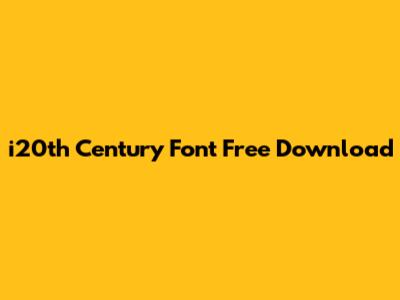
Download I20th Century Font: Free Options & Alternatives
Finding the perfect font can be a game-changer for any design project. If you're on the hunt for an i20th century font free download, you've come to the right place. In this article, we'll explore what makes this font style unique, where you can find it, and some awesome alternatives if you're coming up short. Let's dive in!
What is the i20th Century Font?
The i20th century font isn't a single, specific font, but rather a style that evokes the design aesthetics of the 20th century. This era saw a massive shift in typography, influenced by movements like Bauhaus, Art Deco, and the rise of modernism. Fonts from this period often feature clean lines, geometric shapes, and a sense of functional elegance. Think about the fonts you might see on vintage posters, old advertisements, or classic book covers – those are the kinds of vibes we're talking about.
The key characteristics of i20th century fonts include:
- Geometric Shapes: Many fonts from this era rely on basic geometric forms like circles, squares, and triangles.
- Clean Lines: Simplicity and clarity were highly valued, leading to fonts with straightforward, uncluttered designs.
- Sans-Serif Styles: While serif fonts were still around, sans-serif fonts gained prominence due to their readability and modern look.
- Boldness and Impact: Fonts were often designed to make a statement, with strong, eye-catching letterforms.
- Functional Aesthetics: The focus was on readability and usability, ensuring the font served its purpose effectively.
When you're looking for an i20th century font for your project, consider how these elements can enhance your design. Whether you're creating a vintage-themed poster, a minimalist website, or a retro logo, the right font can bring that authentic touch of the past to your work. Keep an eye out for fonts inspired by historical typefaces like Futura, Helvetica, and Gill Sans – these are great starting points for capturing that classic 20th-century feel. Remember, the goal is to find a font that not only looks good but also communicates your message clearly and effectively. So, explore different options, experiment with pairings, and have fun discovering the perfect i20th century font for your needs.
- Creative Market (Free Goods): Creative Market occasionally offers free goods, including fonts. While these offers are time-limited, it's worth keeping an eye on their site. You might just stumble upon an i20th century font that's perfect for your project.
- MyFonts: While MyFonts is primarily a commercial font marketplace, they sometimes offer free fonts as part of promotions. Check their website regularly to see if any 20th-century-inspired fonts are available for free.
When searching for a free i20th century font, remember to be specific with your keywords. Try terms like "geometric sans-serif," "vintage font," or "retro font" to narrow down your results. Also, pay attention to the details of each font. Look at the letterforms, the spacing, and the overall design to ensure it aligns with the aesthetic you're aiming for. Don't be afraid to experiment with different fonts and pairings to achieve the perfect look for your project. And, most importantly, always respect the font's license terms to avoid any legal issues down the road.
Great Alternatives to i20th Century Fonts
If you're struggling to find the exact i20th century font you're looking for, don't worry! There are plenty of fantastic alternatives that can give you a similar vibe. The key is to understand the characteristics of 20th-century typography and find fonts that embody those qualities. Let's explore some excellent options:
- Futura: Futura is a classic geometric sans-serif font designed by Paul Renner in 1927. Its clean lines and simple shapes make it a quintessential example of 20th-century modernism. Futura is incredibly versatile and works well for headlines, body text, and logos. It exudes a sense of sophistication and timelessness that's hard to beat. Whether you're designing a poster, a website, or a branding identity, Futura is a reliable choice that will give your project a touch of vintage elegance.
- Helvetica: Helvetica is another iconic sans-serif font that emerged in the mid-20th century. Designed by Max Miedinger in 1957, Helvetica is known for its neutrality and clarity. It's a highly legible font that works well in a variety of contexts. Helvetica's clean and straightforward design makes it a popular choice for corporate branding, signage, and editorial design. If you're looking for a font that's both functional and stylish, Helvetica is an excellent alternative to a specific i20th century font.
- Gill Sans: Gill Sans is a humanist sans-serif font designed by Eric Gill in the late 1920s and early 1930s. It combines the clarity of sans-serif fonts with a touch of calligraphic warmth. Gill Sans has a distinctive character that sets it apart from other sans-serif fonts. It's a great choice for projects that require a font with personality and readability. Consider using Gill Sans for book covers, magazine layouts, or any design that needs a touch of classic charm.
- Avant Garde: Avant Garde is a geometric sans-serif font designed by Herb Lubalin and Tom Carnase in the late 1960s. It's characterized by its clean lines and sharp angles. Avant Garde has a distinctive, modern look that's perfect for creating a bold statement. Use it for headlines, logos, or any design that needs a touch of edginess.
- Century Gothic: Century Gothic is a geometric sans-serif font that's heavily influenced by Futura. It was designed by Monotype in 1991. Century Gothic is a clean, legible font that works well for both print and digital applications. It's a versatile choice that can be used for a wide range of projects.
When selecting an alternative to an i20th century font, consider the overall tone and message of your design. Think about the historical context and the specific characteristics of the fonts you're considering. Experiment with different pairings and combinations to find the perfect look for your project. Remember, the goal is to capture the essence of 20th-century typography while creating a design that's both visually appealing and effective.
How to Use i20th Century Fonts in Your Designs
Once you've found the perfect i20th century font (or a suitable alternative), the next step is to integrate it effectively into your designs. Here are some tips to help you make the most of these classic typefaces:
- Consider the Context: Think about the overall theme and message of your design. Is it a vintage-inspired poster, a modern website, or a retro logo? The font you choose should complement the context and enhance the overall aesthetic.
- Pairing is Key: Experiment with different font pairings to create visual interest and hierarchy. Combine your i20th century font with a contrasting font for body text, or use different weights and styles of the same font family to create a cohesive look.
- Pay Attention to Kerning and Leading: Kerning (the spacing between individual letters) and leading (the spacing between lines of text) can significantly impact the readability and visual appeal of your typography. Adjust these settings carefully to ensure your text is easy to read and looks polished.
- Use Whitespace Effectively: Whitespace (or negative space) is an essential design element that helps to create balance and clarity. Don't overcrowd your design with too much text or too many elements. Give your i20th century font room to breathe by incorporating plenty of whitespace.
- Embrace Simplicity: 20th-century design often favored simplicity and functionality. Avoid overly ornate or decorative fonts that can detract from the message. Stick to clean, legible fonts that prioritize clarity and readability.
- Incorporate Vintage Elements: To further enhance the 20th-century vibe, consider incorporating other vintage elements into your design, such as old photographs, retro color palettes, or classic illustrations.
- Be Consistent: Maintain consistency in your typography throughout your design. Use the same font for headings, subheadings, and body text to create a unified and professional look.
For example, if you're creating a vintage-inspired poster, you might pair a bold i20th century font like Futura for the headline with a simple serif font like Garamond for the body text. Use a retro color palette of muted greens, yellows, and browns to complete the look. Add a vintage photograph or illustration to further enhance the 20th-century vibe.
By following these tips, you can effectively use i20th century fonts in your designs to create visually appealing and impactful compositions. Remember to experiment, have fun, and let your creativity guide you.
Conclusion
So, whether you're after a specific i20th century font free download or exploring similar styles, remember the key is to capture the essence of that era. With clean lines, geometric shapes, and a focus on functionality, these fonts can bring a touch of vintage elegance to any project. Happy designing, guys!